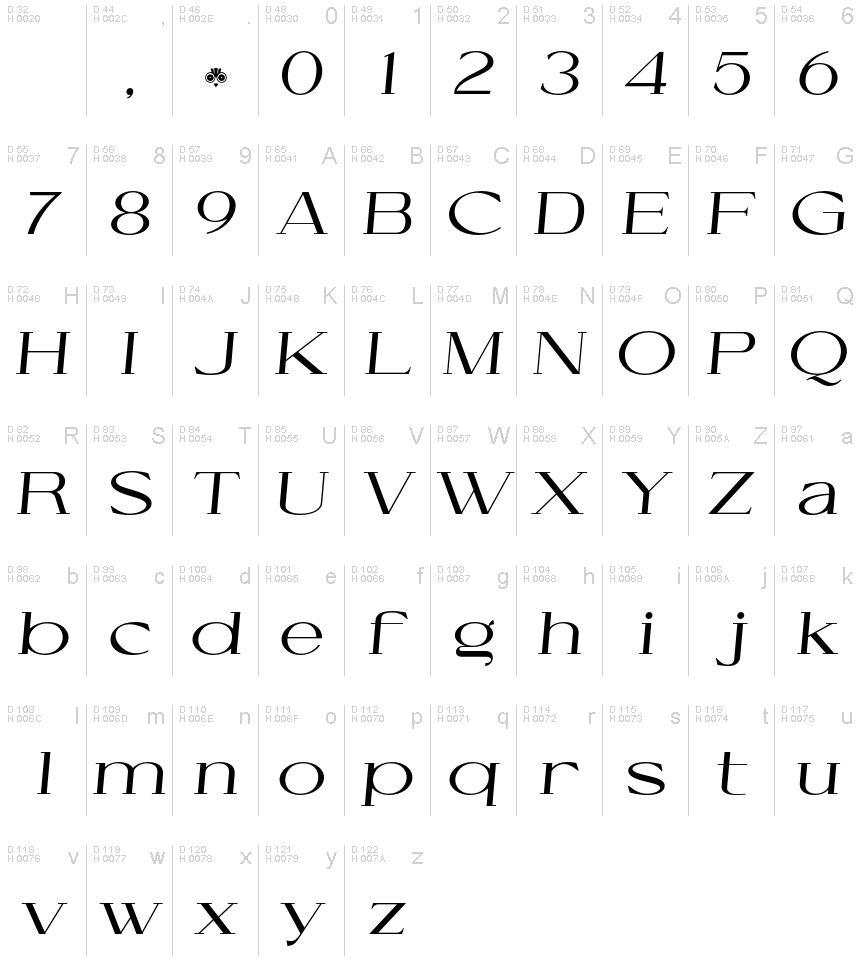
Cellofy-MediumExpandedItalic
Cellofy Medium Expanded Italic font, part of the Cellofy family by Owlking Project, is a captivating serif typeface with an expanded width that stands out in any design. The elegant italic style adds a touch of sophistication, making it ideal for projects that demand attention and refinement.
This free font combines classic serif elements with contemporary flair, perfect for headlines, branding, and editorial design where a bold impression is essential. Its extended form enhances readability while maintaining aesthetic appeal, offering versatility across various mediums.
Whether you're looking to create impactful designs or seeking a stylish addition to your type toolkit, download Cellofy Medium Expanded Italic to elevate your creative work. Suitable for personal use, this font promises to bring uniqueness and elegance to any project.
This free font combines classic serif elements with contemporary flair, perfect for headlines, branding, and editorial design where a bold impression is essential. Its extended form enhances readability while maintaining aesthetic appeal, offering versatility across various mediums.
Whether you're looking to create impactful designs or seeking a stylish addition to your type toolkit, download Cellofy Medium Expanded Italic to elevate your creative work. Suitable for personal use, this font promises to bring uniqueness and elegance to any project.